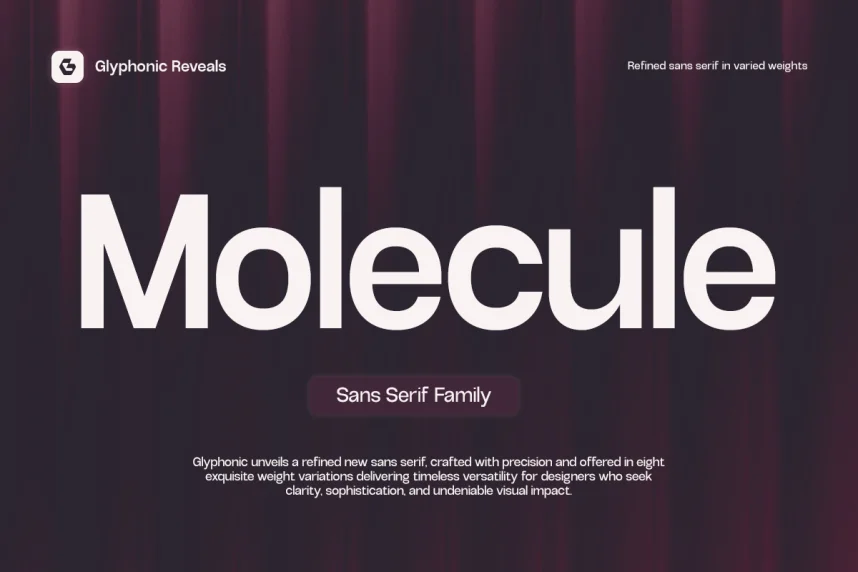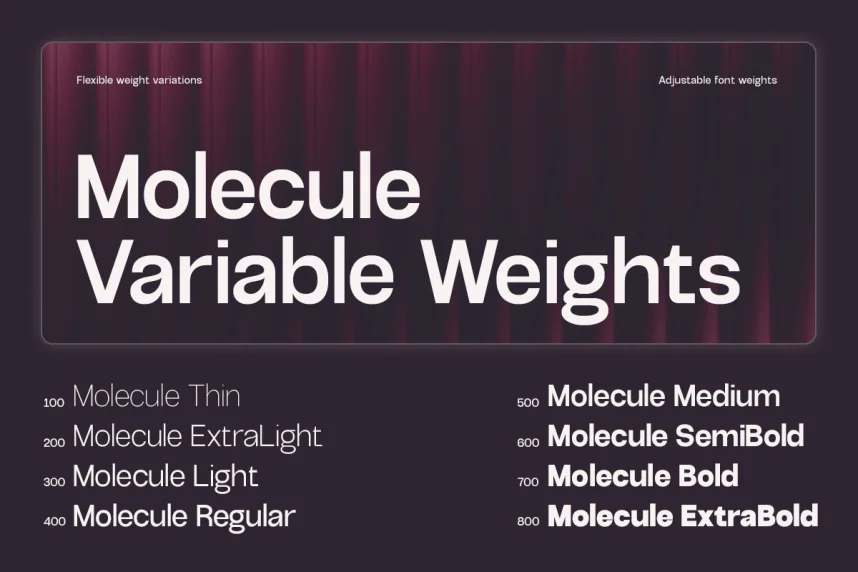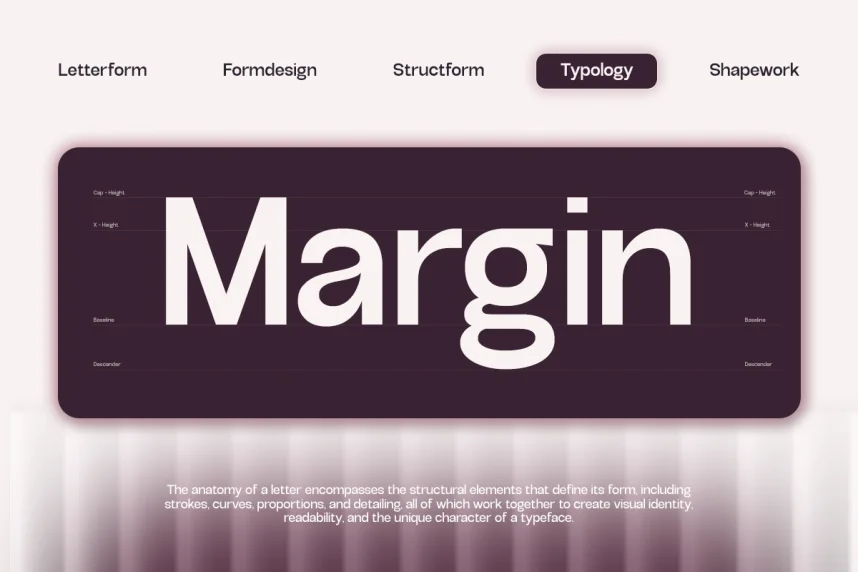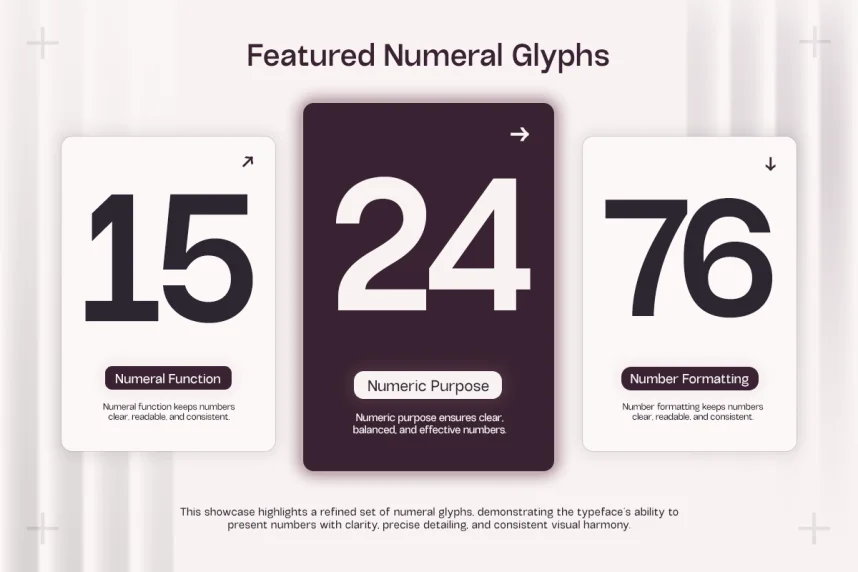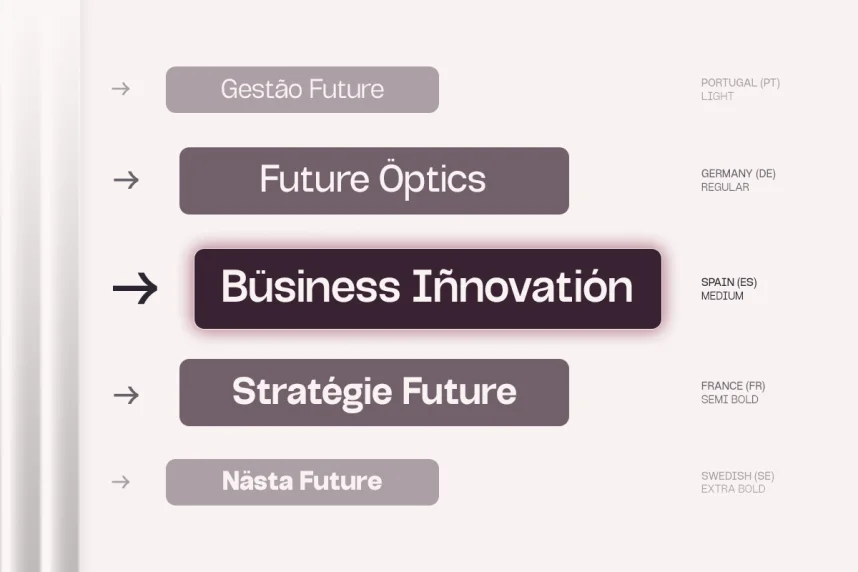
GC Molecule Font is a modern display typeface designed for readability in futuristic and tech-oriented design projects. Its structured, geometric letterforms support branding, posters, and digital graphics where clarity and style are essential.
The font family features even stroke widths, open counters, and modular shapes. Its design emphasizes balance, making it suitable for large headings, digital displays, and creative marketing visuals. Ligatures and alternate glyphs allow flexible typographic expression.